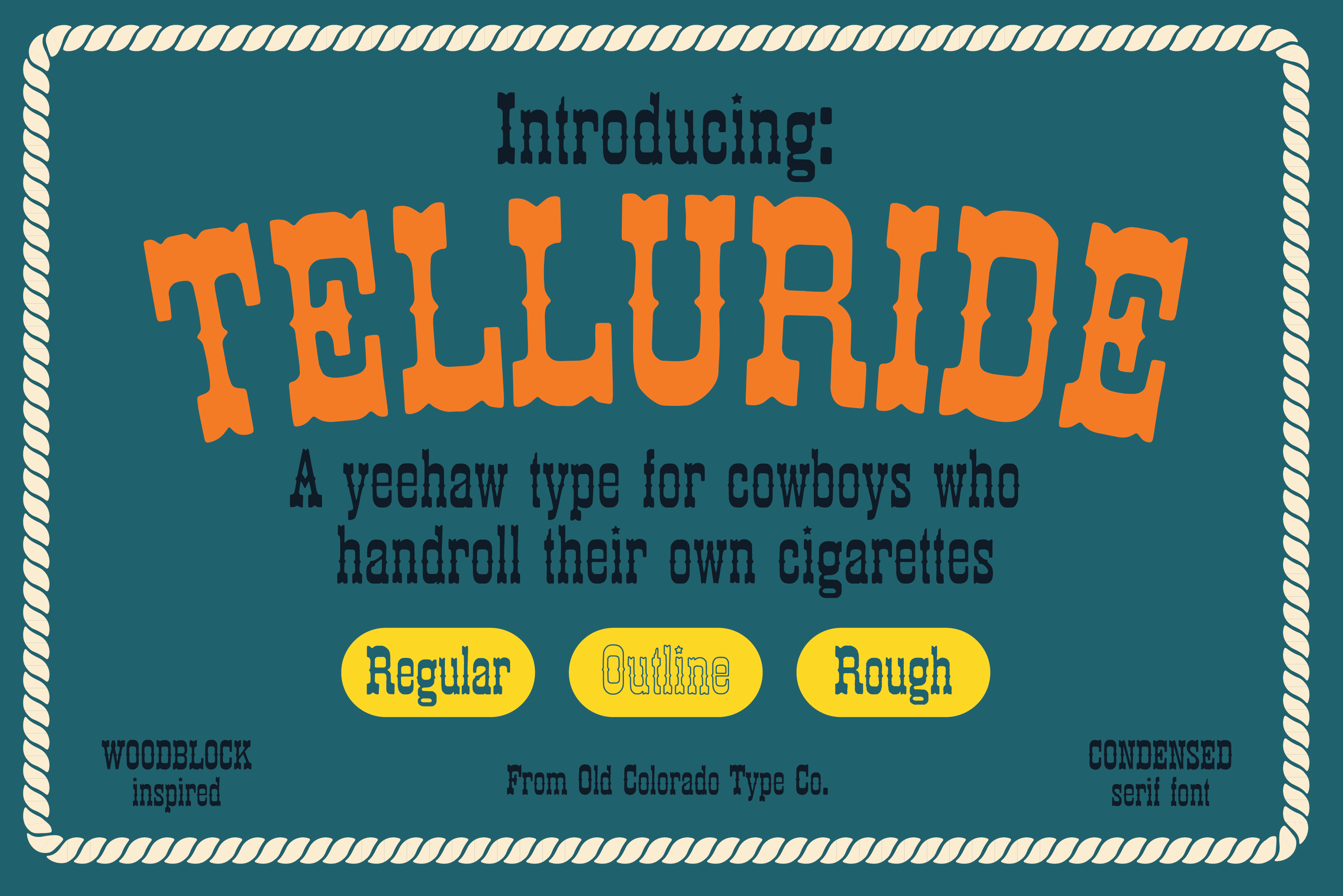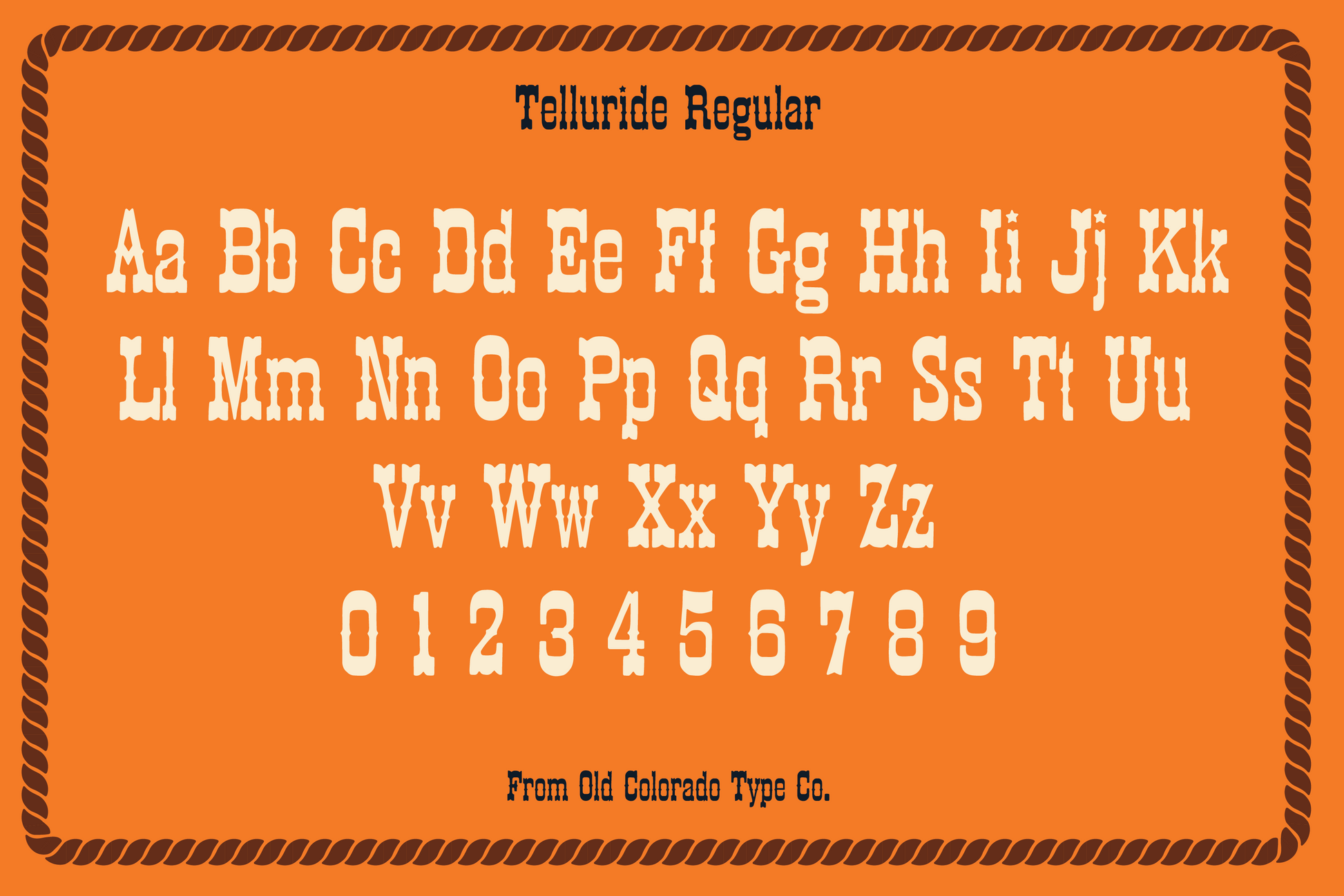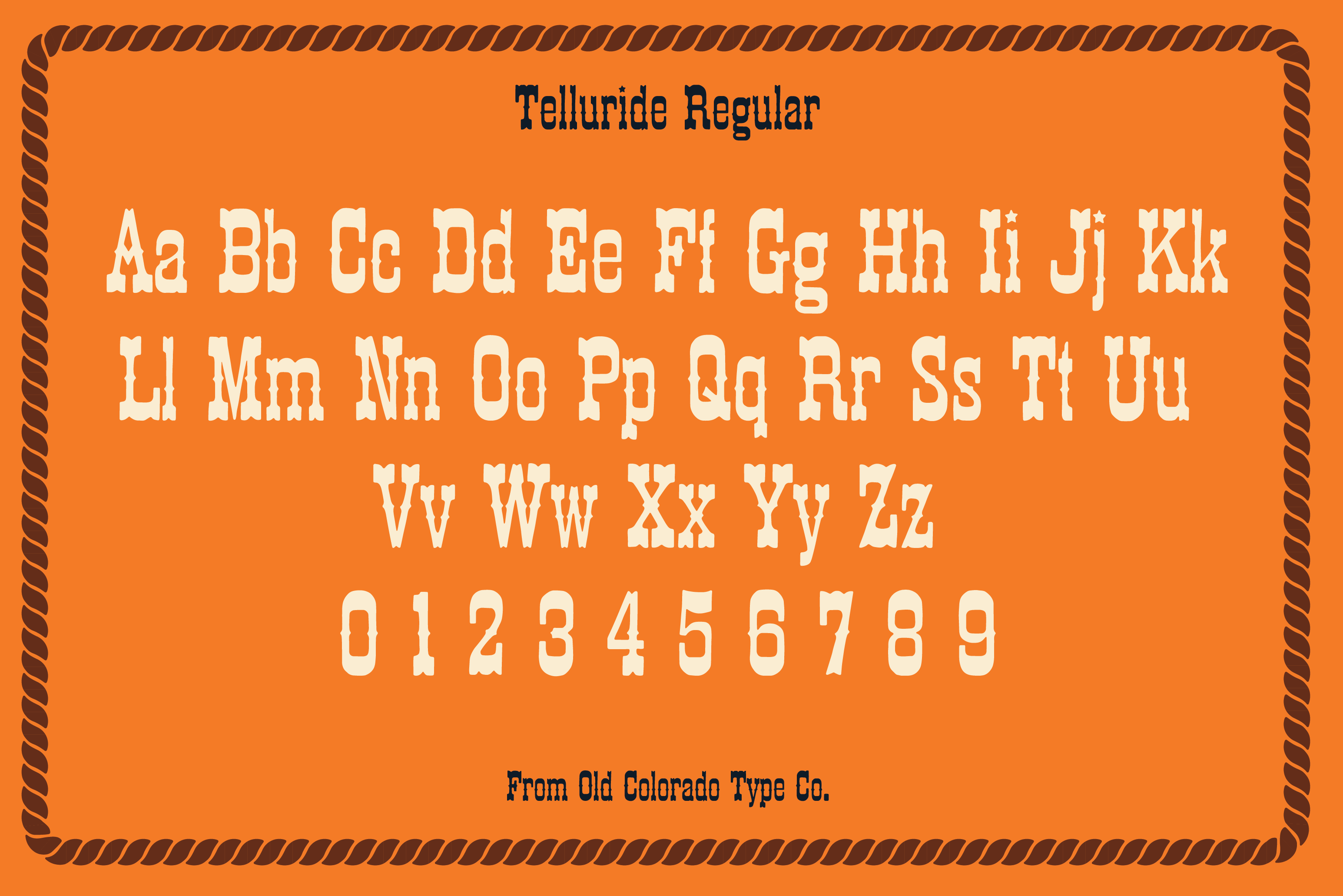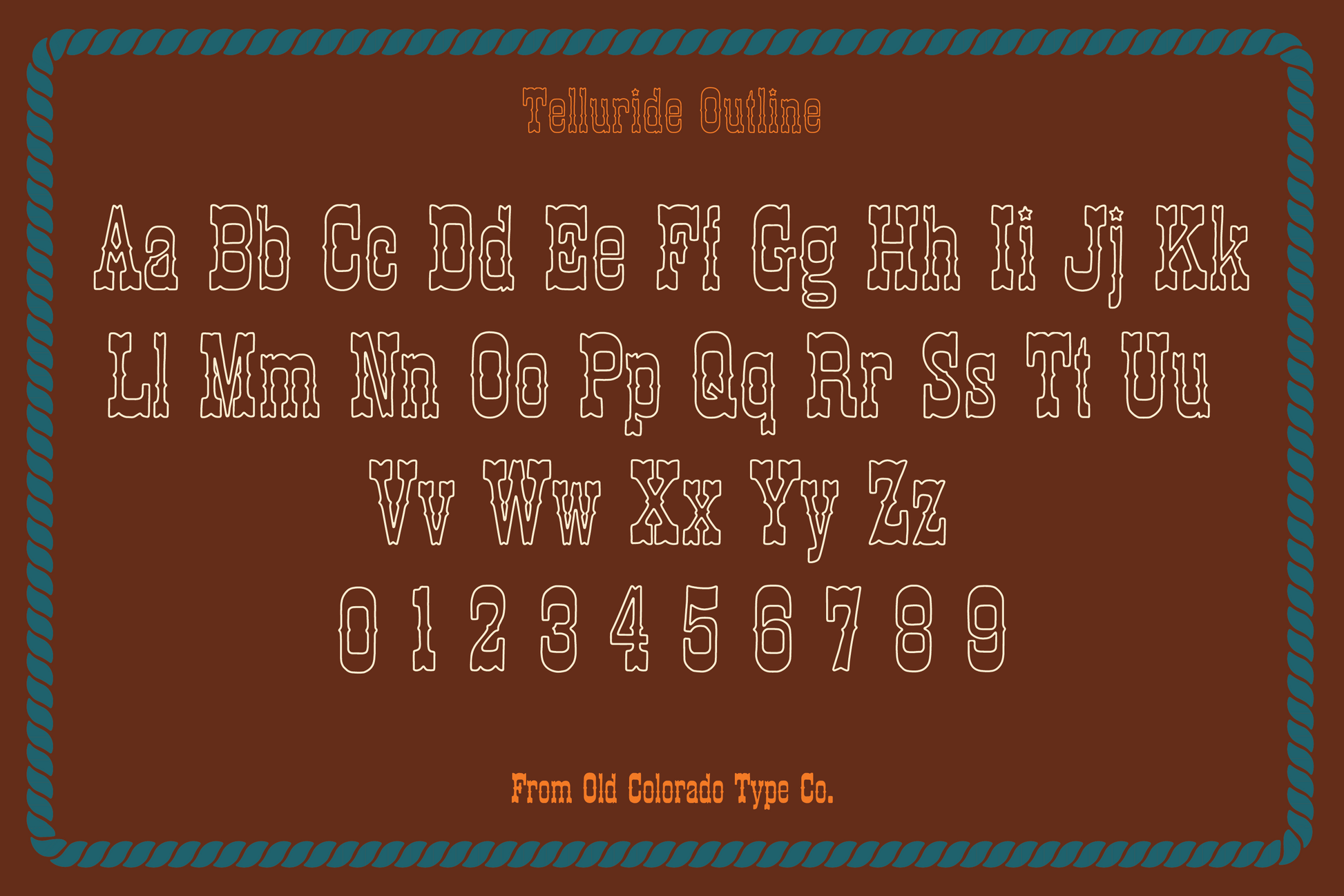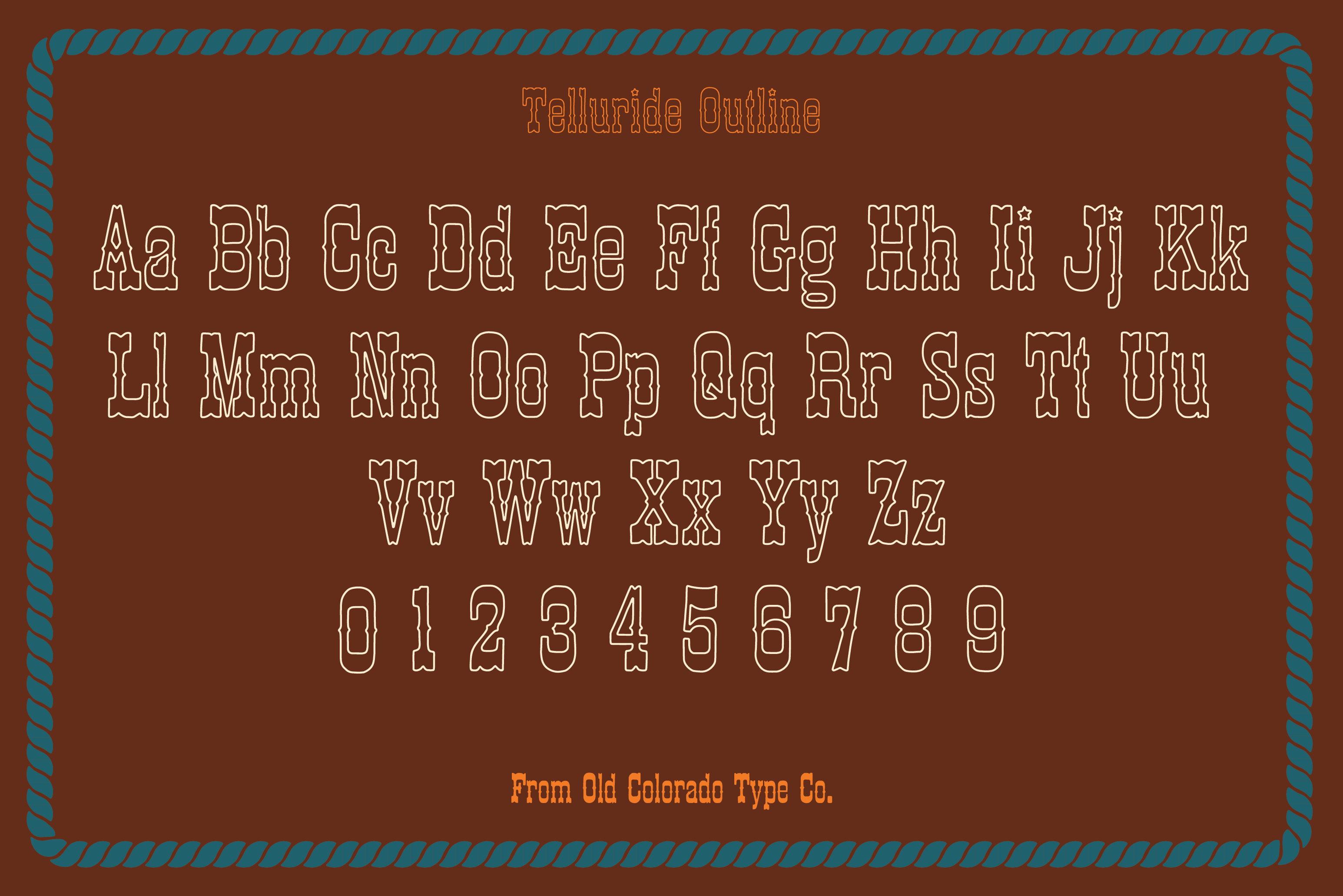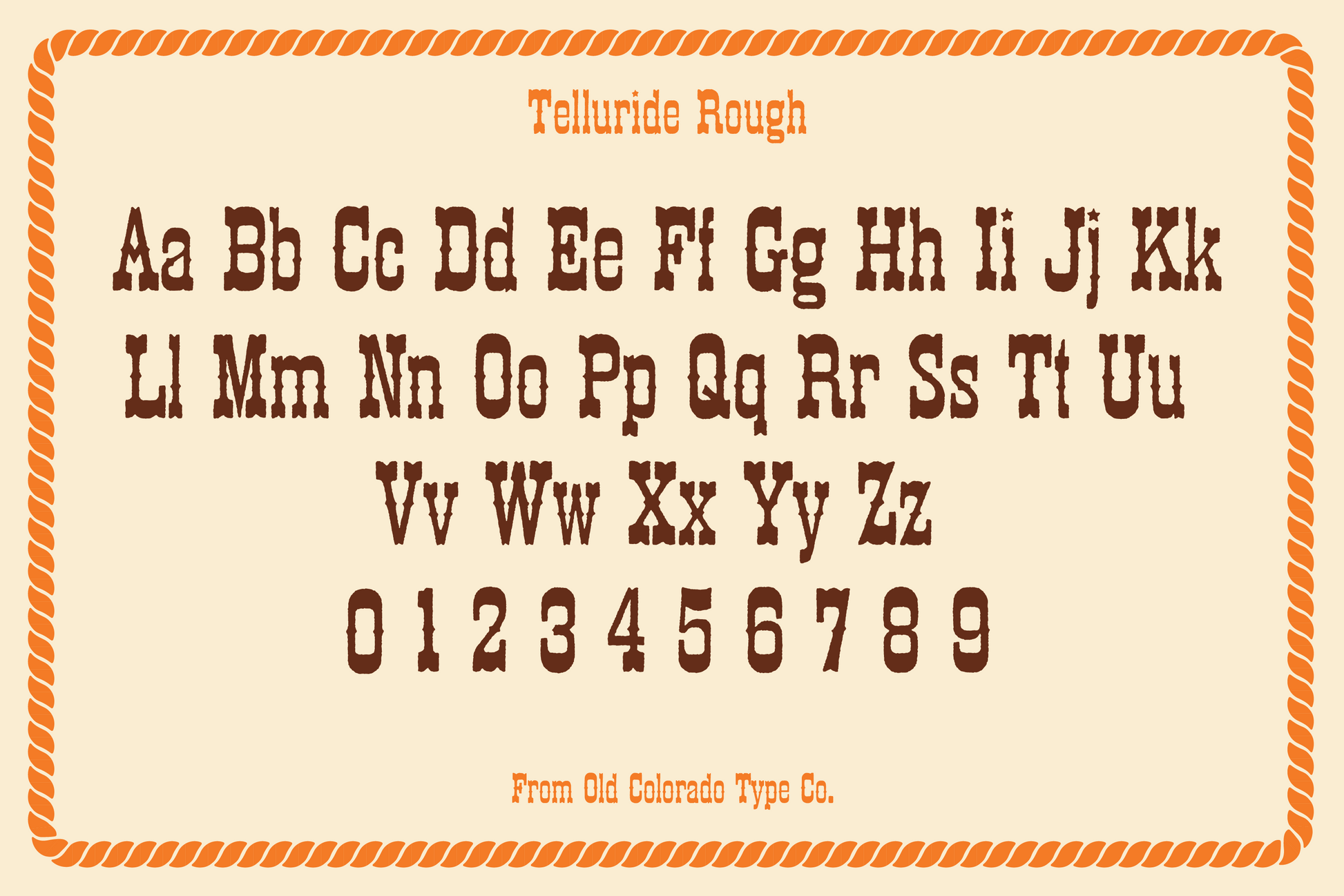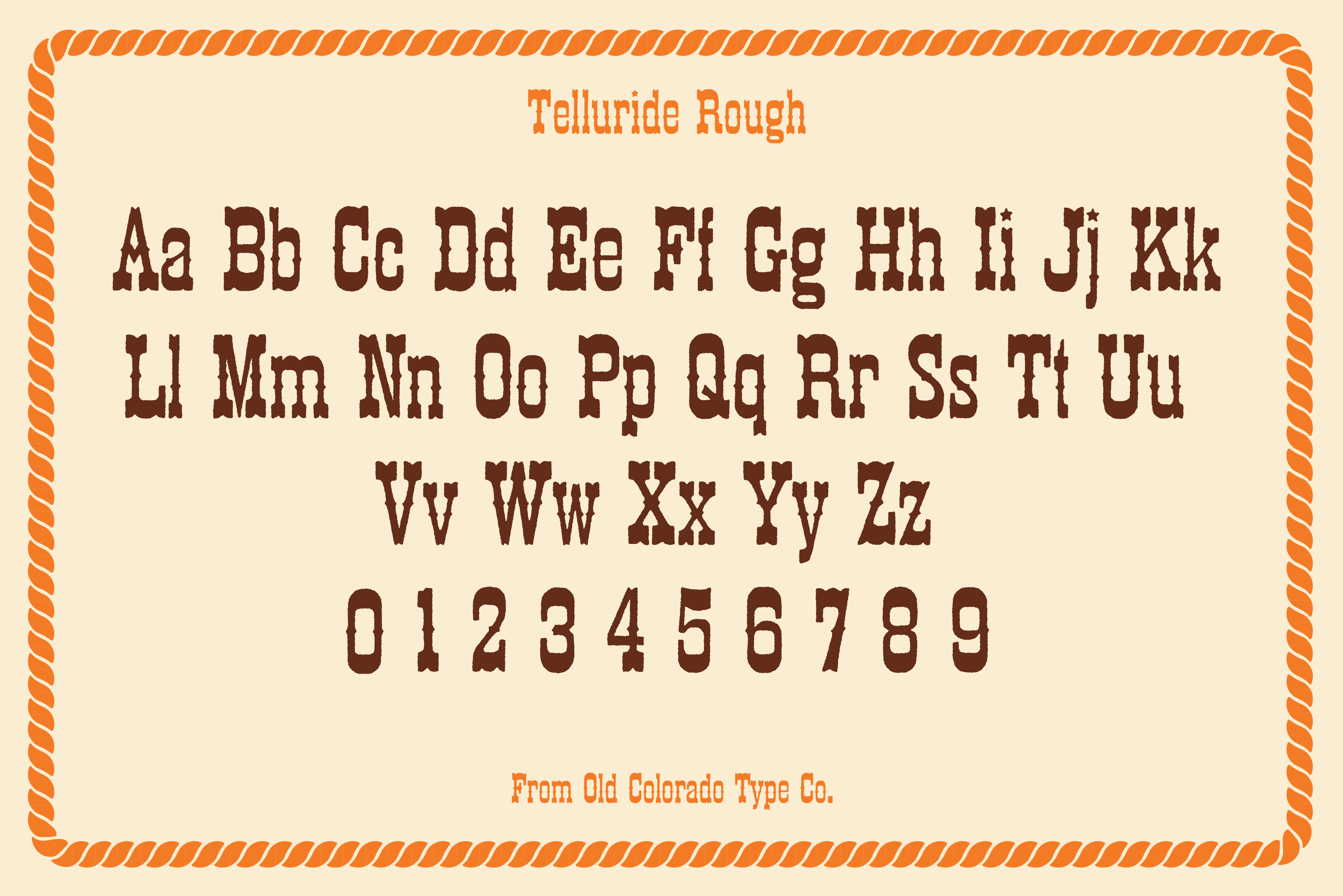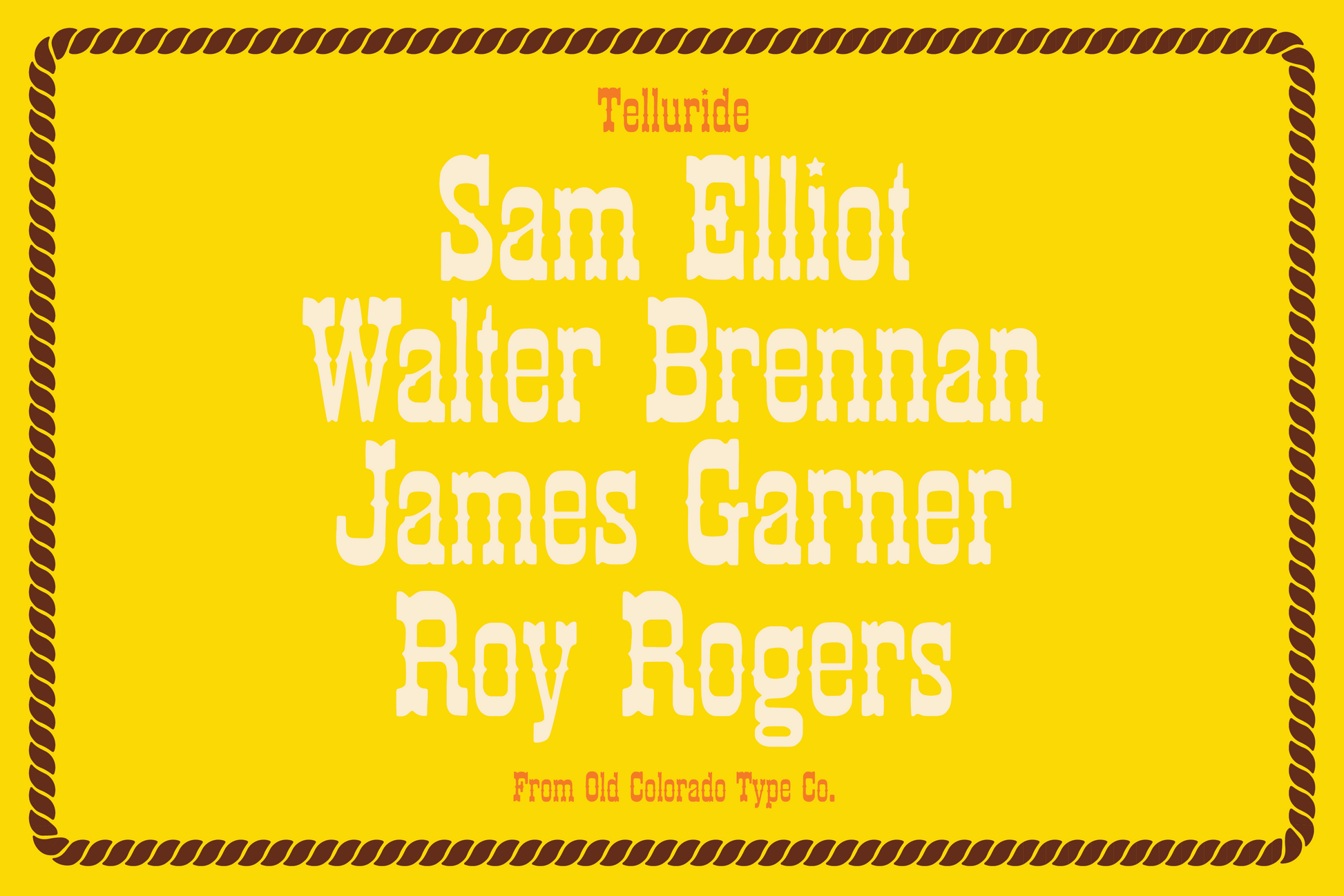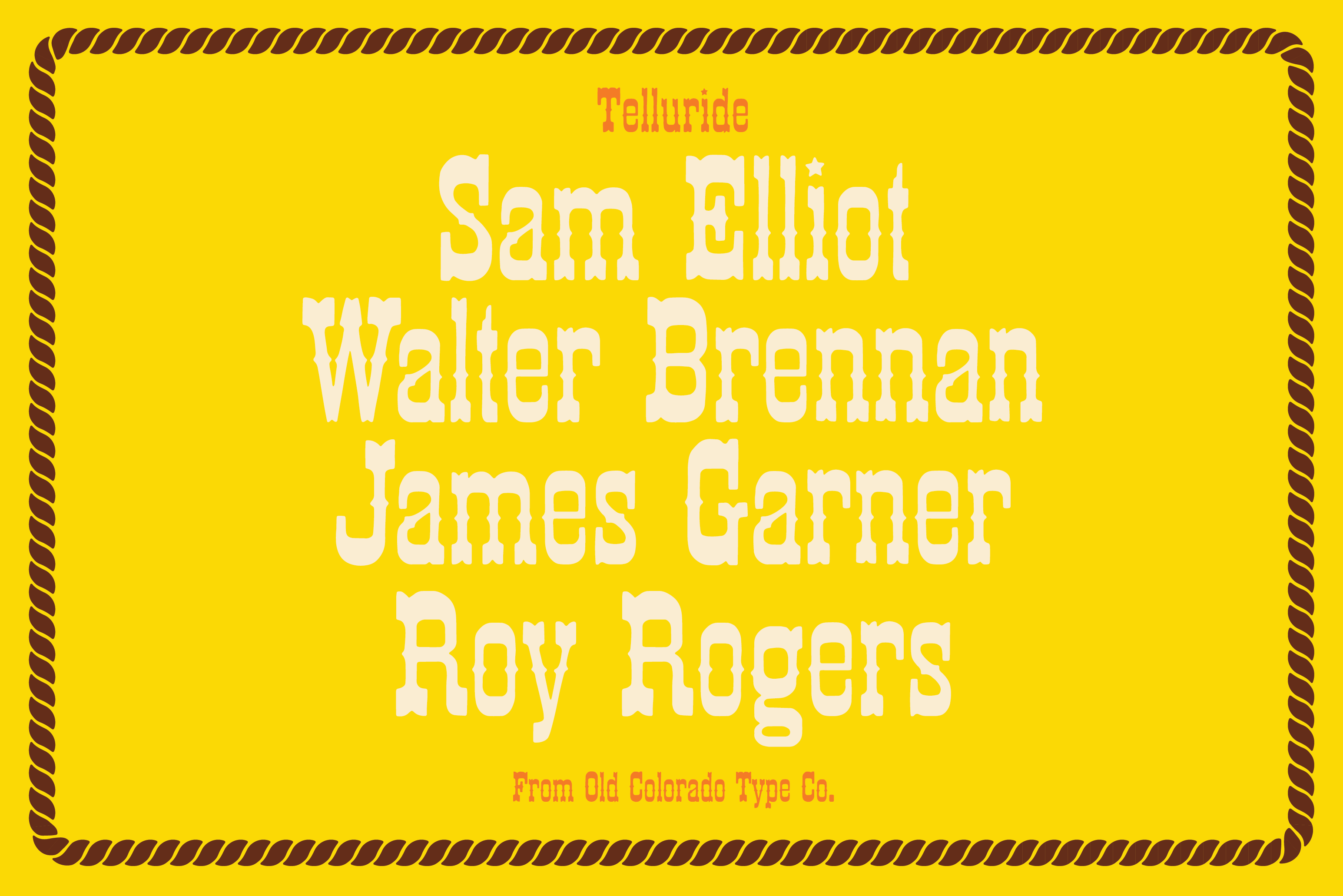
Telluride Typeface
Are you always looking for a condensed western font like me? Here's your guy. Spurs and all. Old Colorado Type Co. is the moniker for my side quest as a type designer :)